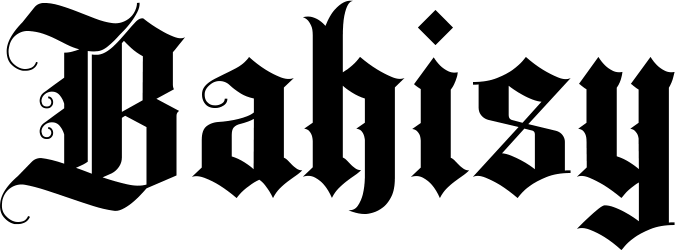
Bahisy Font
Bahisy font is one of the most popular black letter and gothic fonts. This font can help you design poker cards, cigarette packs, and drink labels. In addition, for people interested in tattoo design with a bit unreadable letters, it is recommended to use all the characters for their customers.
In addition to all the features and applications mentioned, it should be noted that this masculine tattoo font is one of the best options for designing invitation cards for casinos and arcades.